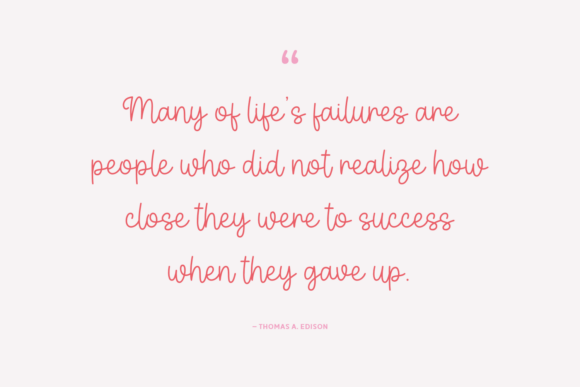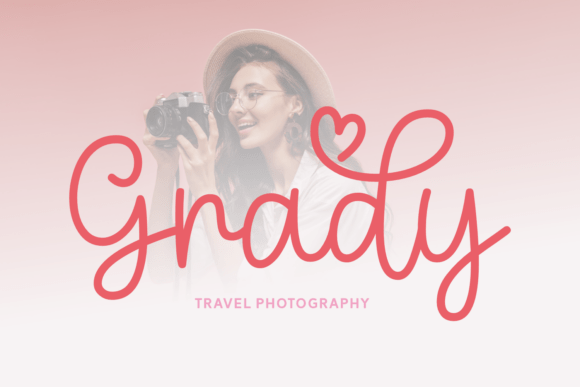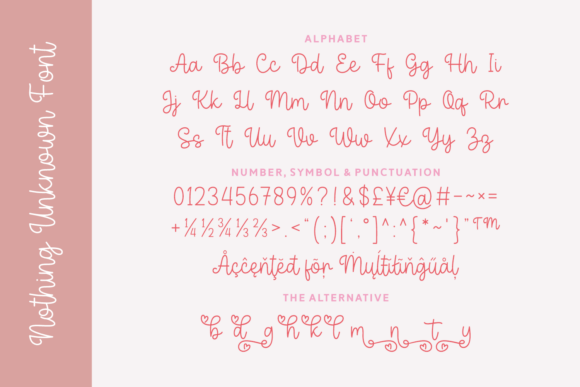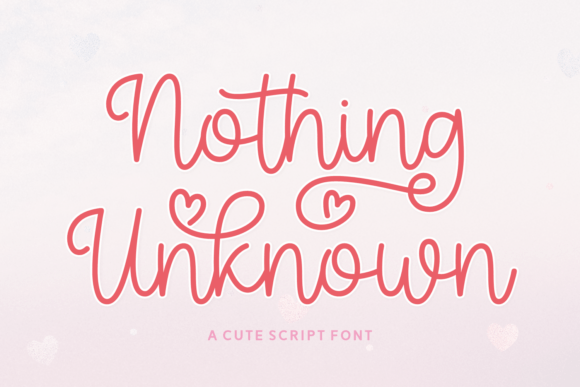
Introduction to Nothing Unknown Font
Nothing Unknown is a sweet and playful script font designed to capture hearts.
With swirly loops, soft curves, and heart-shaped accents, this font brings an extra dose of cuteness to your designs Perfect for love notes, Valentine’s cards, baby designs, and girly branding, Nothing Unknown is your go-to for expressing warmth, whimsy, and affection.
Nothing Unknown Font offers exceptional quality and versatility, making it a valuable addition to your design toolkit. Whether you’re creating for personal projects or commercial use, Nothing Unknown Font delivers professional results.